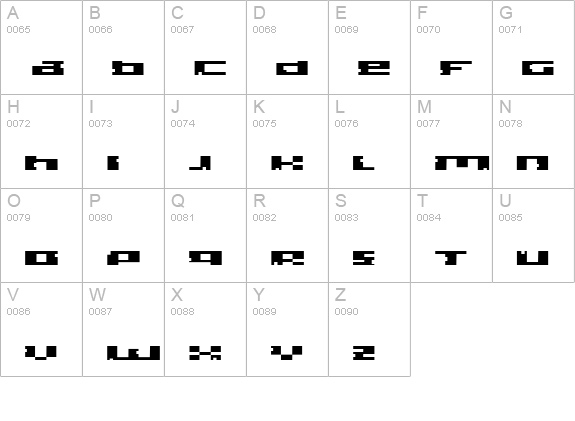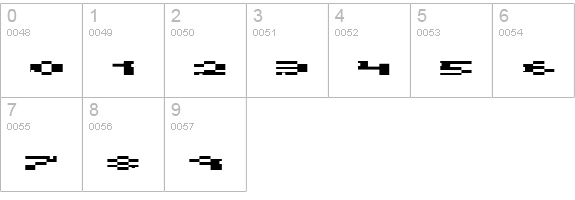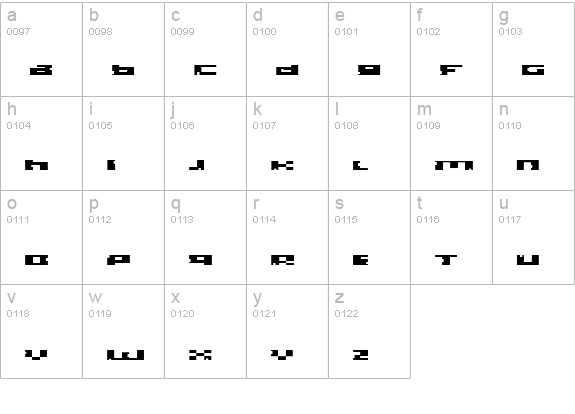
Bite Font Details
Bite font is a modern and stylish typeface that exudes a sleek and contemporary feel. With its sharp edges and bold presence, this font is perfect for making a statement in any design project. The Bite font is versatile and can be used for various purposes, from branding to headlines to social media graphics. What sets Bite font apart is not only its striking appearance, but also the fact that it is completely free to download. Yes, you read that right! Bite font is freely available for download at FontsMarket.com, making it accessible to everyone looking to add a touch of sophistication to their designs without breaking the bank. Whether you're a graphic designer, a marketer, a blogger, or simply someone who appreciates good typography, Bite font is sure to elevate your projects and leave a lasting impression. Embrace the boldness of Bite font and watch your designs come to life with this stunning typeface at your fingertips.